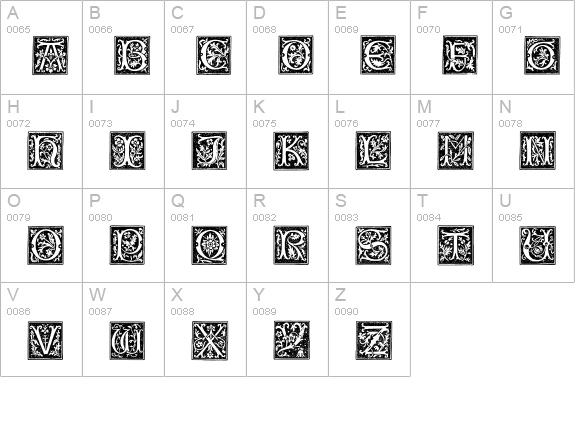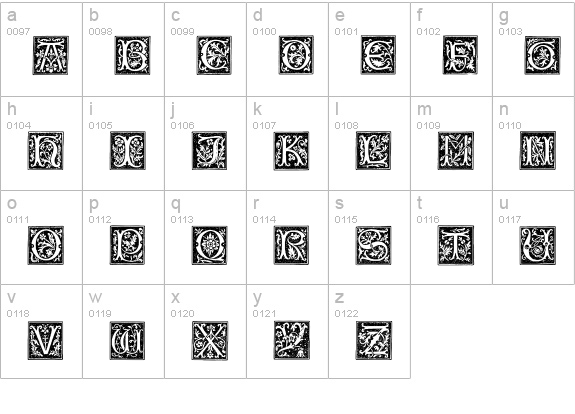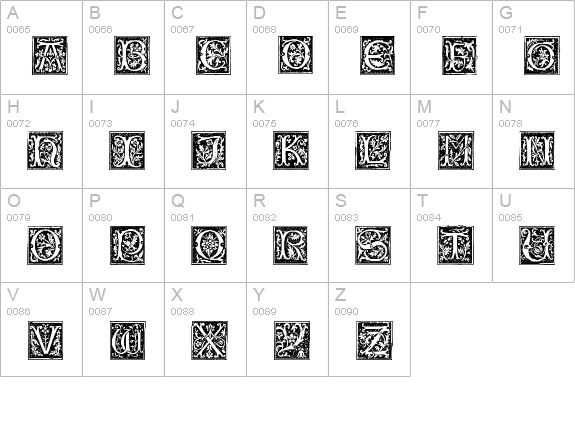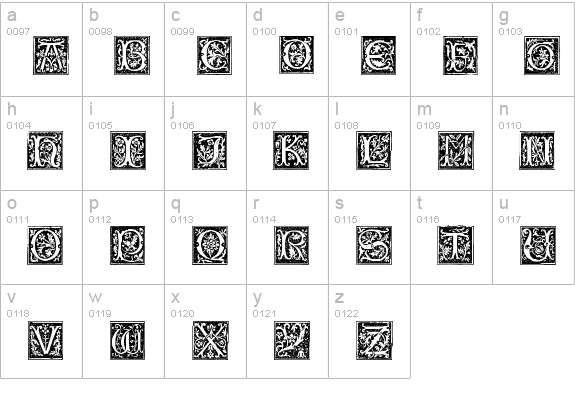
TypographerWoodcutInitialsOne font is an exquisite typographic masterpiece that effortlessly combines the elegance of traditional woodcut initials with a contemporary twist. Crafted with meticulous attention to detail, this font exudes a timeless charm that is sure to captivate any viewer. Featuring ornate and intricate letterforms, TypographerWoodcutInitialsOne font is a true work of art. Each character is meticulously handcrafted, showcasing the skill and craftsmanship that went into its creation. The sharp edges and intricate patterns bring a sense of depth and dimension, making this font perfect for adding a touch of sophistication and elegance to any design. What sets TypographerWoodcutInitialsOne font apart is not just its stunning aesthetics, but also its versatility. Whether you're designing a vintage-inspired poster, creating a logo for a high-end brand, or adding a touch of elegance to a wedding invitation, this font will effortlessly elevate your design to new heights. And the best part? TypographerWoodcutInitialsOne font is available for free download at FontsMarket.com. Yes, you read that right - this exceptional font can be yours without spending a dime. FontsMarket.com, the leading online marketplace for fonts, offers this font as a gift to designers and creatives, allowing them to unleash their creativity without any financial constraints. So, if you're looking to add a touch of timeless elegance to your designs, look no further than TypographerWoodcutInitialsOne font. Download it today from FontsMarket.com and let your creativity soar to new heights.